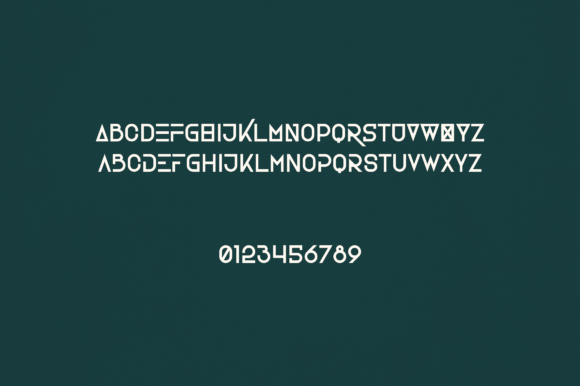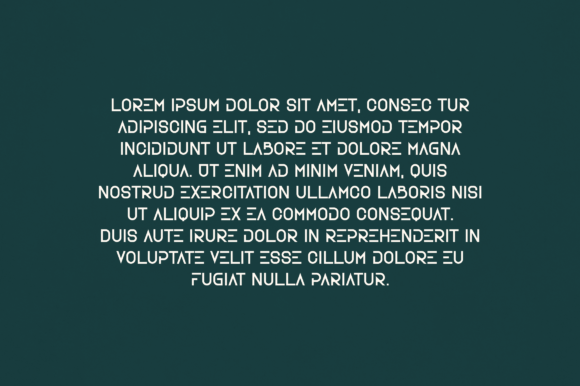
The Magic of Typography: Unveiling the Celestine Font
Have you ever been browsing through a beautifully designed magazine, and suddenly, a single word catches your eye? The way the letters dance on the page, the flow of the text, and the overall aesthetic just transport you to a different world. That’s the magic of typography, and it’s what makes a good design truly unforgettable.
Enter the Celestine Font, a elegant and versatile display font that’s about to become your new go-to for any typography project. This font is perfect for adding a touch of sophistication to your branding, home-ware designs, product packaging, or magazine headers. With its unique charm, the Celestine Font is a valuable asset for designers looking to elevate their work and make it truly stand out.
Celestine Font Key Features
- Unique Characteristics: Celestine Font features a distinctive, elegant design with intricate details, making it suitable for high-end branding, packaging, and advertising projects.
- Kerning and Ligatures: Celestine Font includes advanced kerning and ligature features, ensuring smooth text flow and improved readability.
- Font Weight and Style: Celestine Font is available in multiple weights, from Light to Black, and various styles, including Regular, Italic, and Bold, providing versatility for different design applications.
Celestine Font Review
Celestine Font is a beautiful, elegant font that I had the pleasure of working with. It’s perfect for projects that require a touch of sophistication and refinement. ✨ I love how the font’s subtle curves and lines evoke a sense of luxury and high-end quality. It’s especially great for branding and packaging designs where you want to convey a sense of premium quality.
Here are some of the things that work well in the Celestine Font:
- ✨ Elegant and refined look that’s perfect for high-end designs
- ✨ Highly legible, even at small font sizes
- ✨ Great for titles and headings where you want to make a statement
- ⚠️ The font may not be suitable for projects that require a more playful or casual tone
- ⚠️ The font’s elegant look can sometimes make it feel too formal or stuffy
Overall, I think the Celestine Font is a great choice for designers who want to add a touch of sophistication to their projects. While it may not be the best fit for every project, it’s a solid choice for branding, packaging, and other high-end designs where you want to convey a sense of luxury and refinement.
Tips for Getting the Most Out of Celestine Font
To get the most out of Celestine Font, use it in conjunction with bold or italic text to create visual interest. You can also use it in headings and subheadings to create a clear hierarchy of information.
Celestine Font is a versatile font that can be used in a variety of projects, including:
- Blog posts and articles
- Infographics and presentations